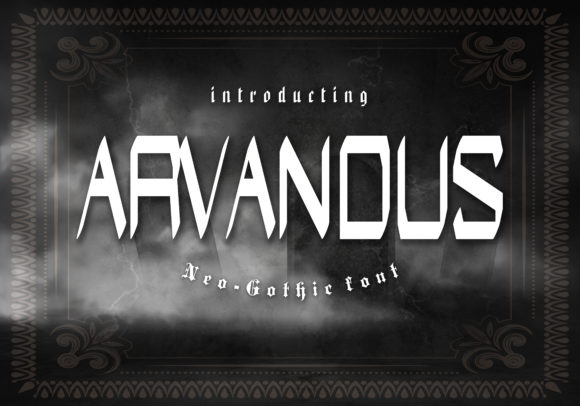
Welcome to the world of Arvandus, a captivating display font that will ignite your designs with its modern, all-caps glory. Meticulously crafted by dmytroyarish, this font is the epitome of contemporary design.
Embark on an artistic voyage as Arvandus transforms your creations into captivating works of art. Its sleek lines and bold presence command attention, making it an ideal choice for headlines, posters, and branding that demands to be noticed.
Experience the versatility of Arvandus as it seamlessly adapts to a myriad of design aesthetics. From sleek and minimalist to bold and expressive, Arvandus possesses an undeniable charm that elevates any project. Unleash your creativity and witness the transformative power of this extraordinary font.
Indulge in the exquisite beauty of Arvandus. Its carefully crafted characters exude sophistication and style, promising to captivate your audience and leave a lasting impression. Each letter is a masterpiece in itself, designed to harmonize perfectly, creating a visually stunning masterpiece that transcends the boundaries of ordinary typography.
Don't let your designs settle for mediocrity. Embrace the allure of Arvandus and unlock a realm of limitless possibilities. Let its modern elegance ignite your imagination and inspire you to create designs that resonate with your audience.
Immerse yourself in the captivating world of Arvandus, where typography becomes an art form. Experience the allure of modern design and elevate your creations to extraordinary heights.